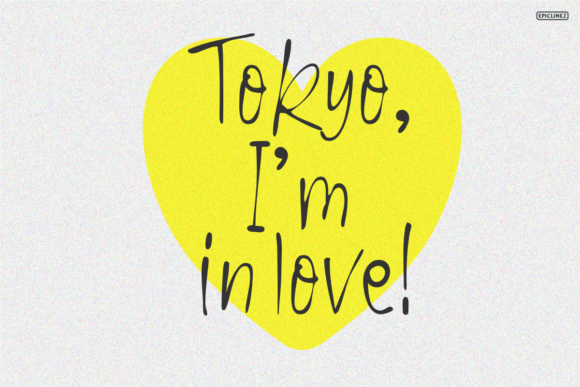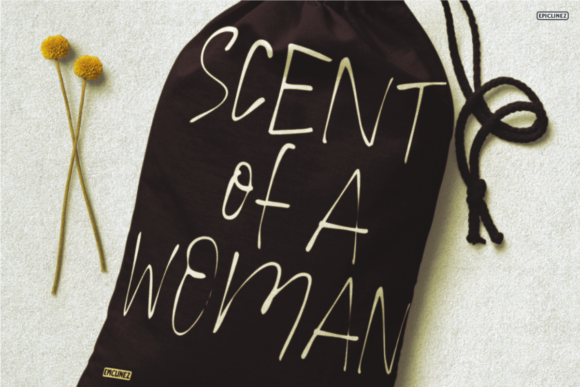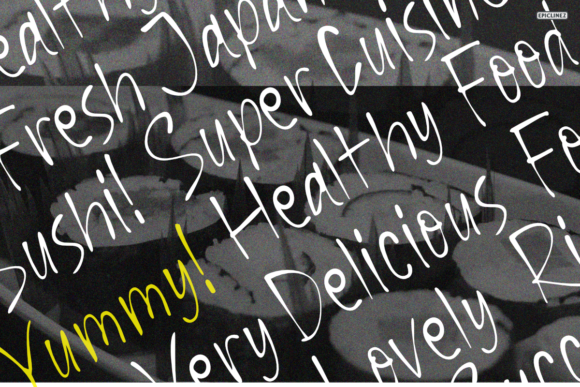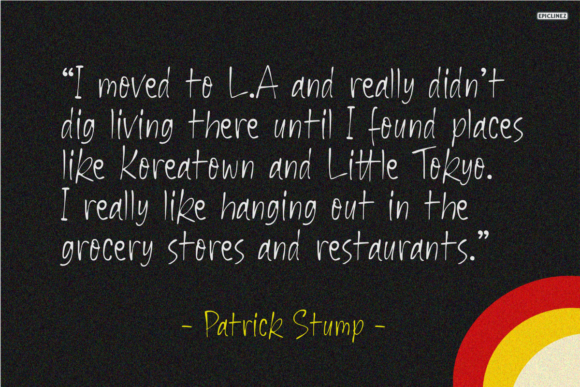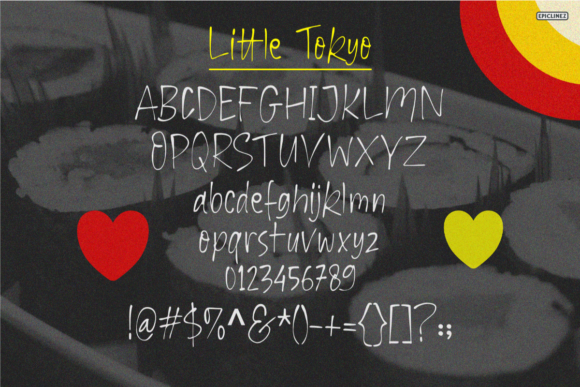
Introduction to Little Tokyo Font
Have you ever been working on a creative project and felt like something was missing – a certain je ne sais quoi that would elevate your design from good to great? For designers, finding the perfect typeface can be a game-changer, and that’s where the Little Tokyo Font comes in. This authentic natural handwriting typeface is a treasure trove of high-quality, free downloads that can add a unique touch to any design.
With its transparent background and effortless charm, the Little Tokyo Font is a design resource that’s sure to captivate your audience. Whether you’re working on a branding project, a website, or a social media campaign, this font is a valuable addition to your toolkit. So why settle for a generic, mass-produced font when you can have a one-of-a-kind, handcrafted typeface that speaks to your brand’s personality?
- High-quality, unique design inspired by Japanese culture, perfect for creative projects and design resources.
- Designed to be versatile, suitable for use in a variety of creative projects, from logos and branding to digital art and print materials.
Honest Review: Little Tokyo Font
I recently stumbled upon the Little Tokyo Font and I’m excited to share my thoughts on this design resource. As a designer, I’m always on the lookout for high-quality fonts that can elevate my creative projects. Little Tokyo Font does just that.
What works well: ✨ The font’s unique blend of traditional and modern elements makes it perfect for projects that need a touch of cultural flair. The transparent background allows for seamless integration with any design, making it a versatile choice. The free download is also a major plus – I love discovering new design resources that won’t break the bank.
- Unique blend of traditional and modern elements
However, there are a few limitations: ⚠️ The font’s character set is limited, so it may not be suitable for complex texts or projects that require a wide range of characters. Additionally, the font may not be as legible in smaller sizes, which could be a concern for projects that require a lot of fine print.
Overall, I’m impressed with Little Tokyo Font and would definitely recommend it for creative projects that need a unique and cultural touch. With a little bit of creativity, this font can be used to create stunning designs that stand out from the crowd.
The Little Tokyo Font is ideal for use in creative projects such as graphic design, digital art, and typography. It’s also a great resource for businesses looking to add a unique touch to their branding and marketing materials.